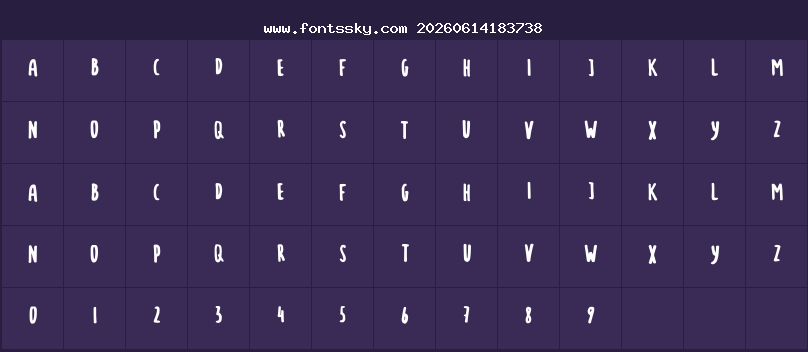
Timothy Preview
About Timothy.otf
Timothy.otf is a modern, elegant sans-serif font designed for ultimate readability and visual harmony. Perfect for branding, headlines, web design, and print materials.